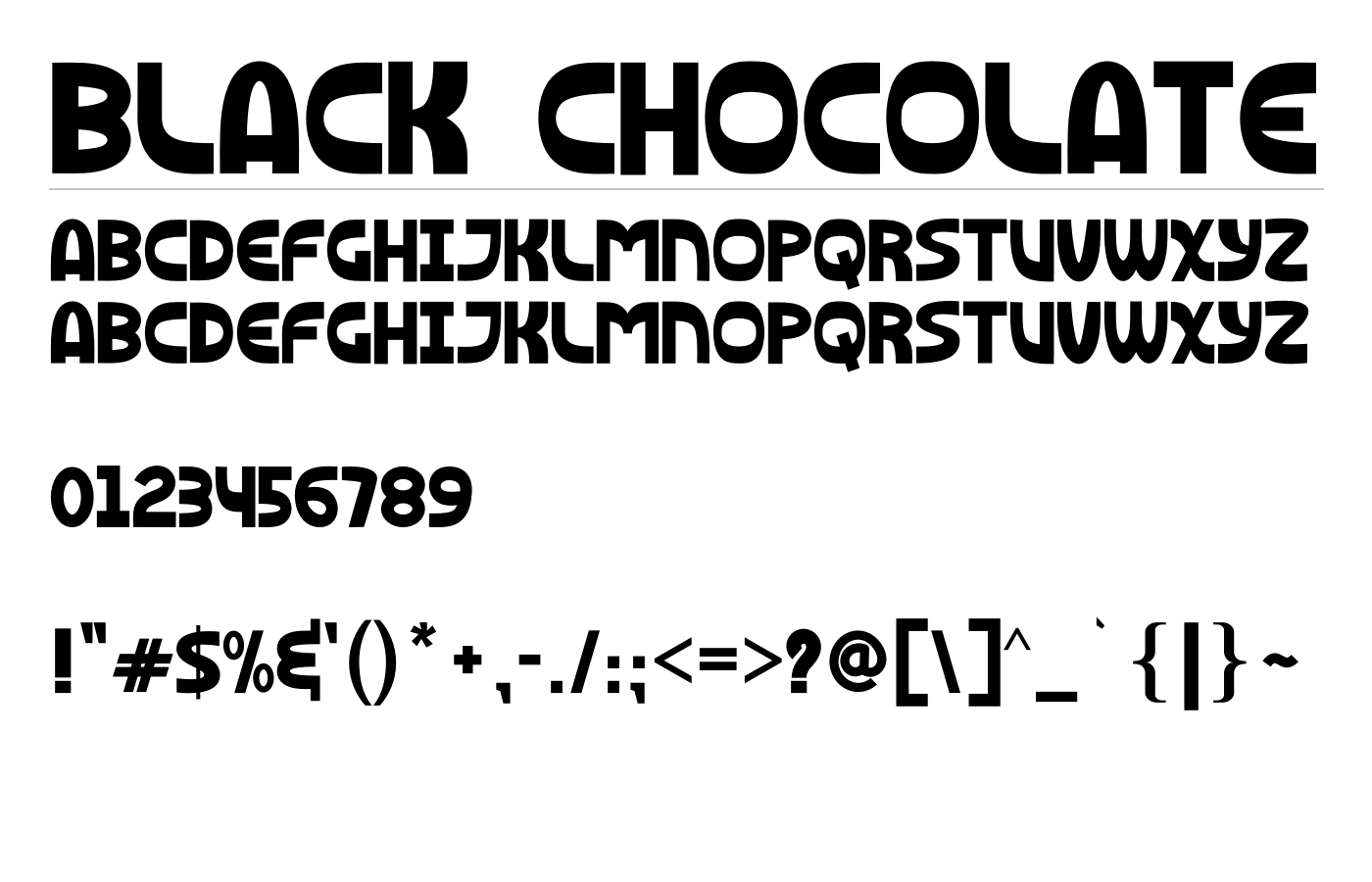
Black Chocolate is a bold, playful sans serif font characterized by its chunky, rounded letterforms and strong presence. Its wide, solid strokes and slightly quirky curves give it a fun, approachable feel perfect for branding, packaging, and headlines that want to convey warmth and creativity. This font shines in designs that aim for a lively, friendly personality while maintaining clear readability.
Black Chocolate Font
About Black Chocolate Font
| Font family | Black Chocolate Font |
| Designer | Kurnia Setyadi |